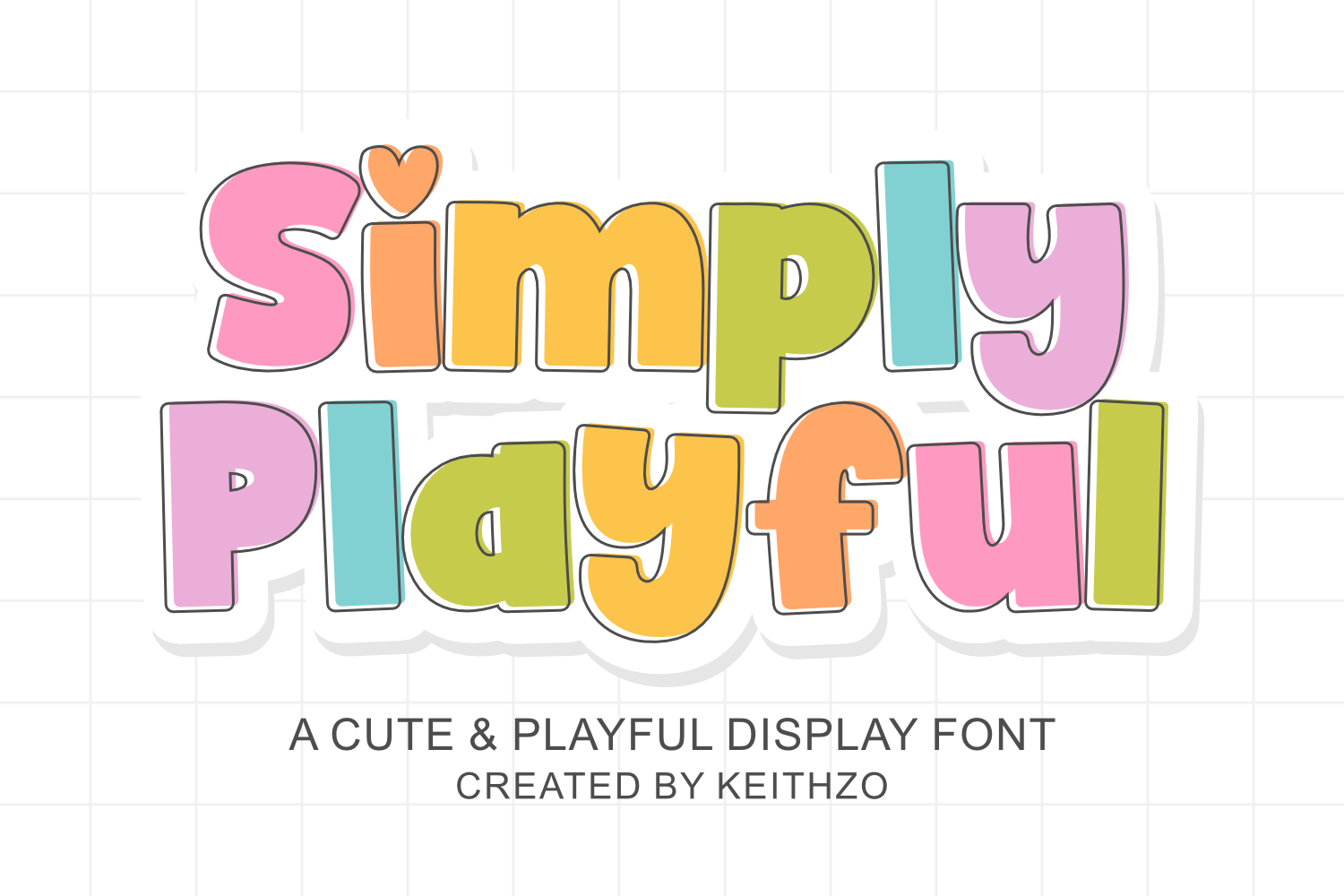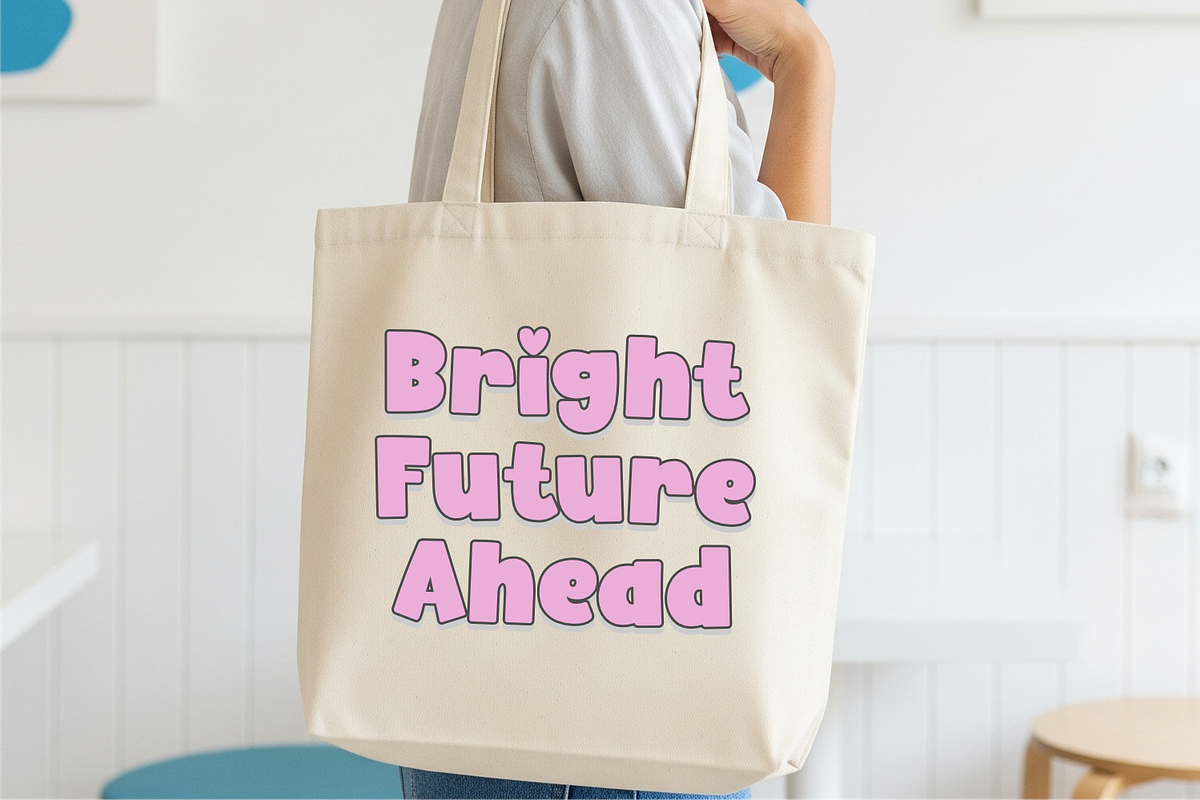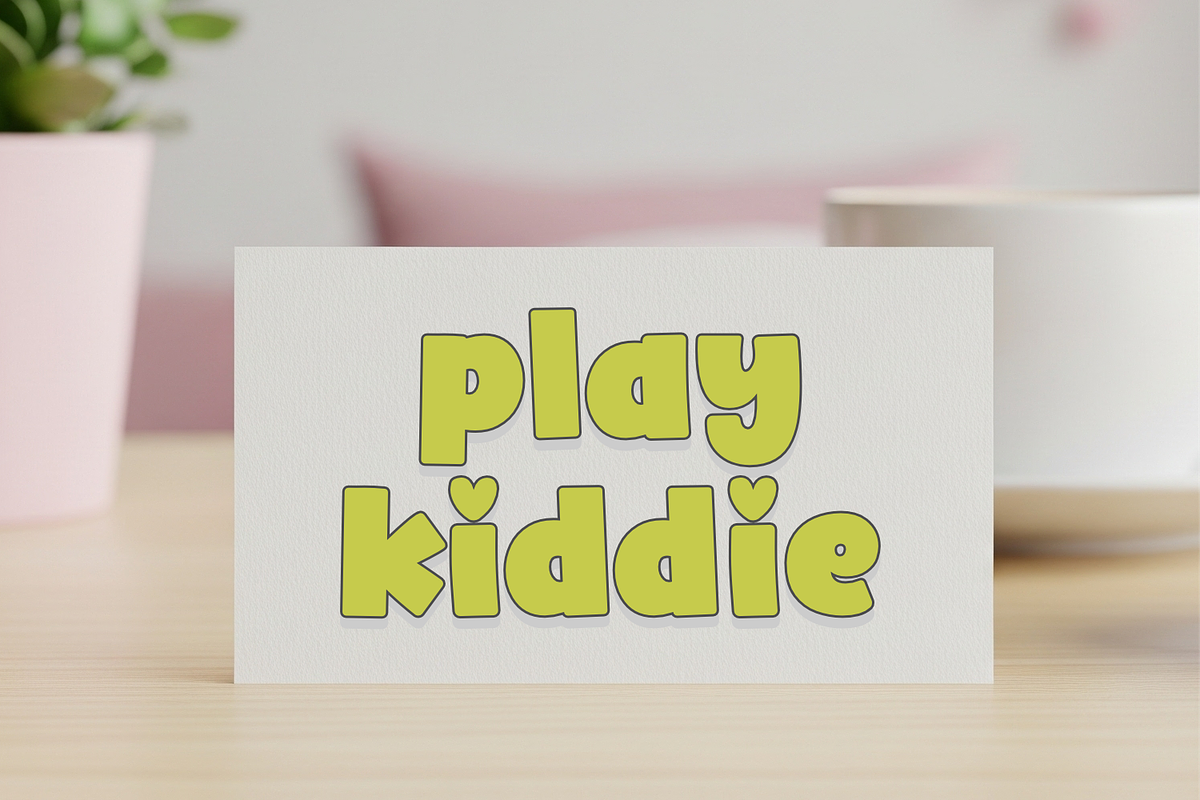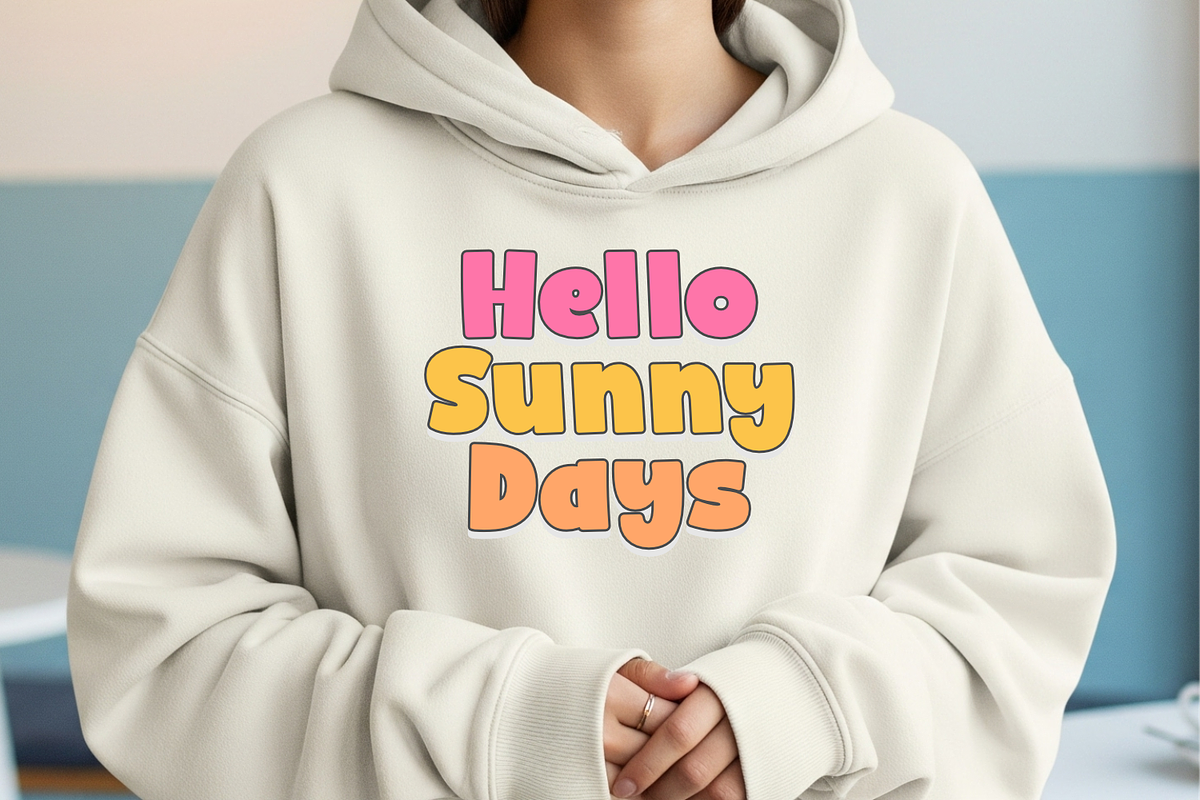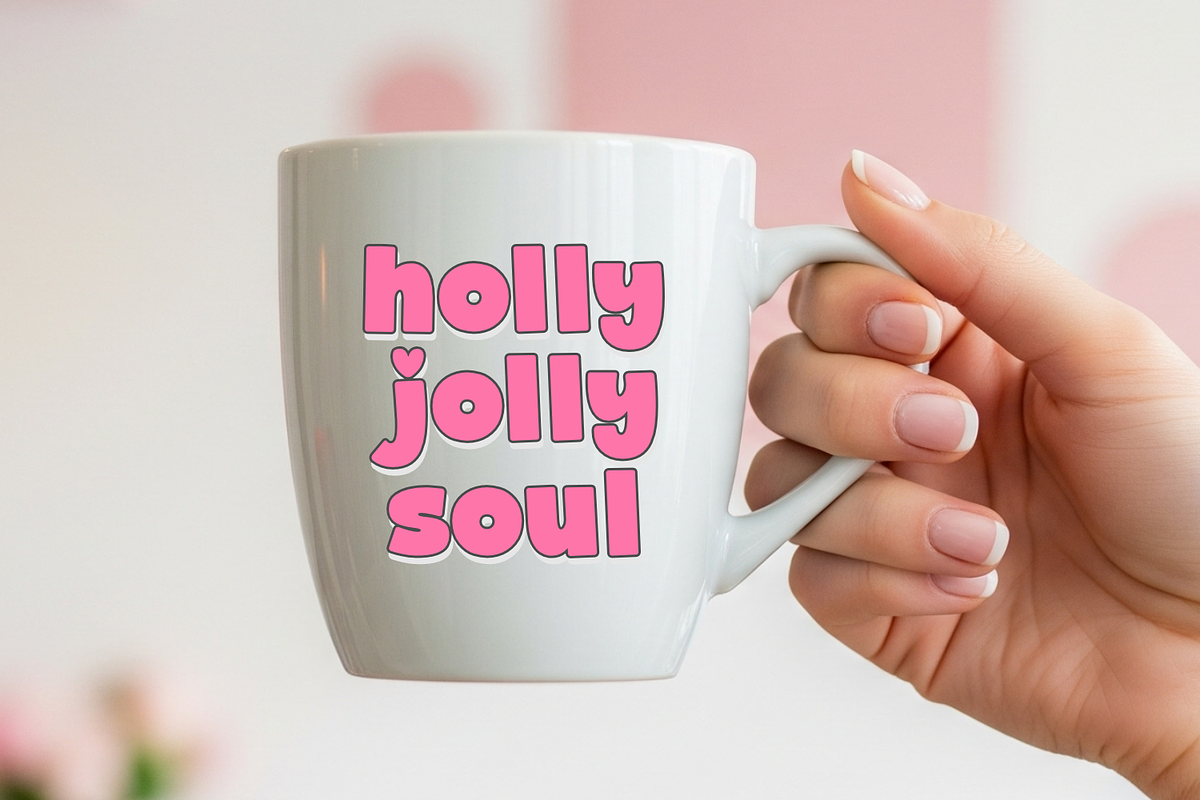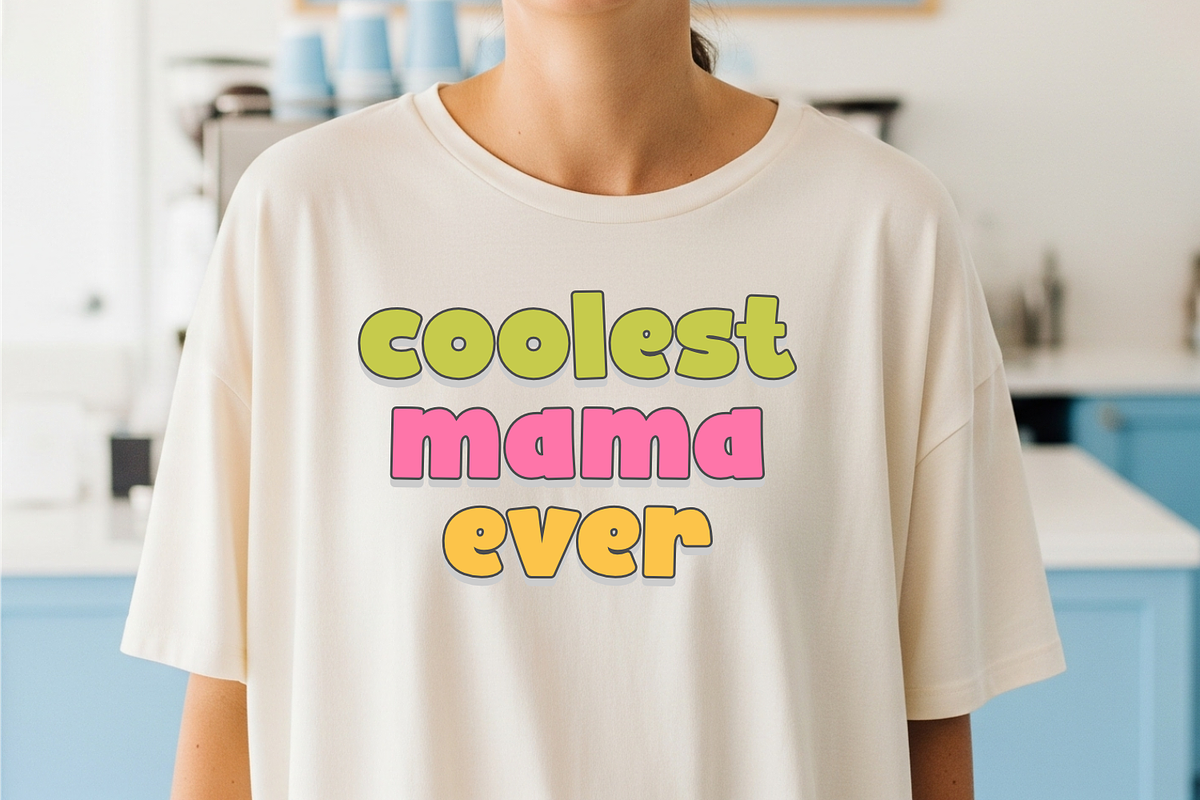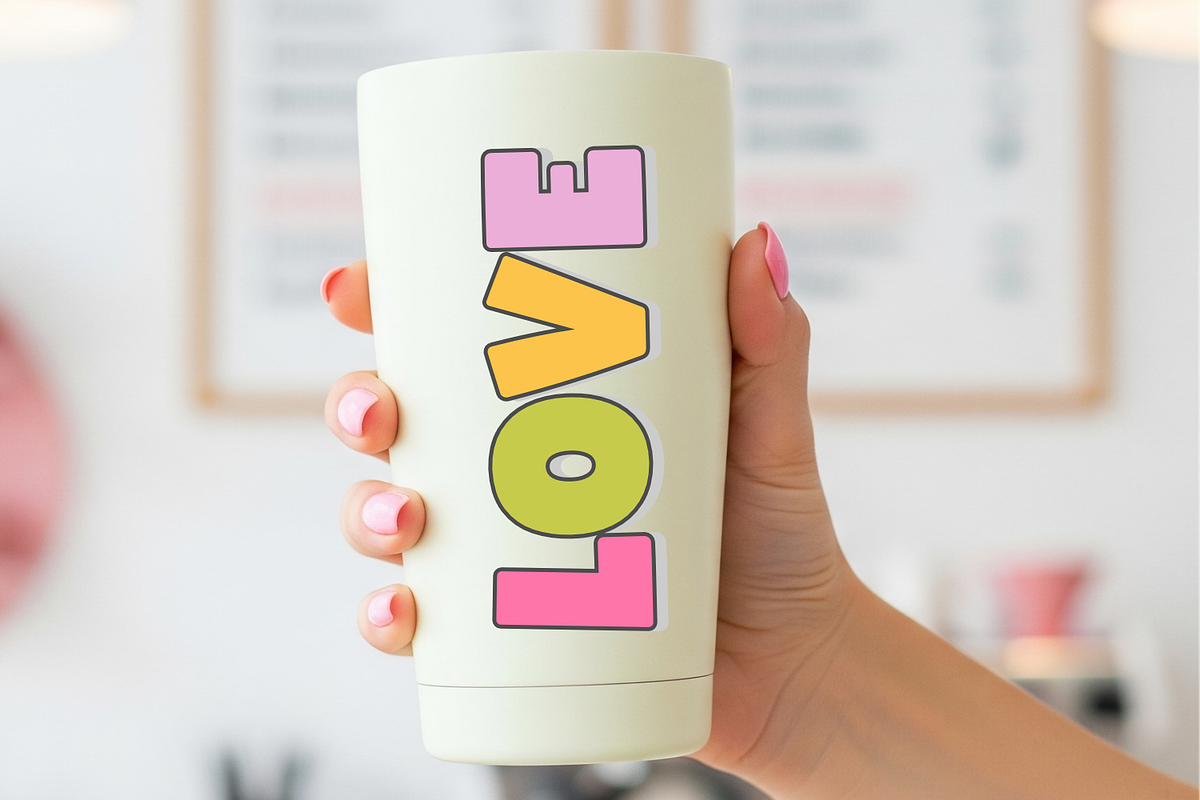
Simply Playful - Display Font
Welcome the joyous aura of Simply Playful to your creative arsenal. This robust, effervescent display font sports a handcrafted feel with smooth, rounded boundaries that flawlessly portray a whimsical retro essence. Its thickness exudes a bold impact, making Simply Playful an ideal selection for headlines intended to grab attention from afar. This versatile font beautifully complements everything – from tailor-made merchandise to digital educational materials – infusing a touch of friendliness and charm to any medium. It’s the heart-shaped dot details on the lowercase letters that lend an additional layer of sweetness to its aesthetic! The font’s hefty lines guarantee that your message will pop, whether gracing massive billboards or adorning miniature stickers. Creating smooth cut paths, Simply Playful is a breeze to use with Cricut, Silhouette, and other die-cut machines. It’s an impeccable representation of trending ‘retro groovy’ and ‘puffy’ design styles. Experience the exuberance with Simply Playful!